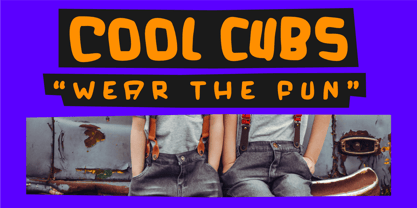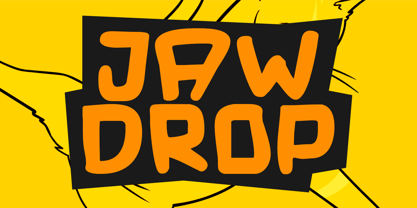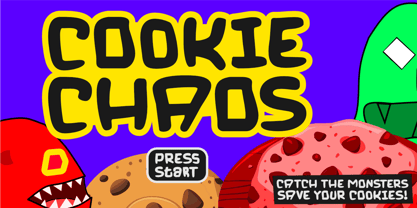
Jaw Drop
by Epiclinez
The Jaw Drop Font Family was designed by Aldy Sidik and published by Epiclinez. Jaw Drop contains 1 styles.
Jaw Drop Font is a bold, fun, and playful display typeface that instantly grabs attention and adds excitement to any design project. With its chunky strokes, energetic curves, and eye-catching style, this font was crafted to deliver maximum impact and make your text truly stand out. Perfect for headlines, logotypes, product packaging, posters, advertising, social media graphics, t-shirts, and branding projects, Jaw Drop brings personality, confidence, and creativity to every letter.
Designed for versatility, Jaw Drop works beautifully across a wide range of creative applications. Use it to design a standout logo, build a vibrant kids’ fashion brand, or create playful packaging and advertising campaigns that leave a lasting impression. Its bold and modern character also makes it perfect for gaming titles, YouTube thumbnails, event posters, school projects, and lifestyle branding, giving your work a fun and youthful edge.
With its modern playful aesthetic and attention-grabbing style, Jaw Drop is not just another font — it’s a statement piece. Whether you’re a designer working on branding, marketing, digital content, or merchandise, this typeface ensures your message is delivered with style, energy, and unforgettable impact.